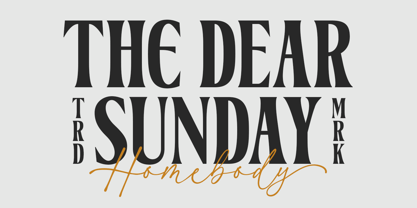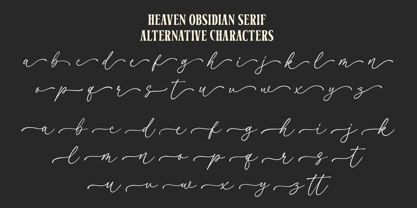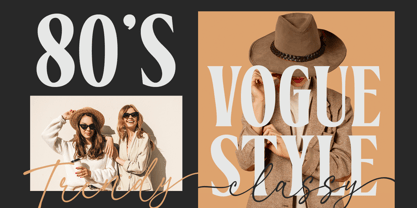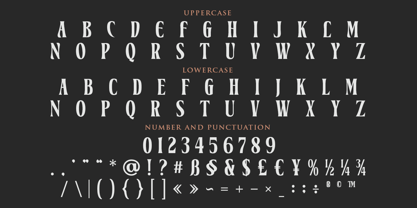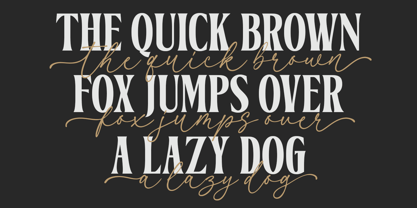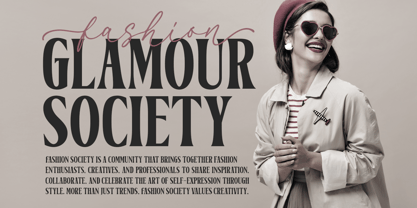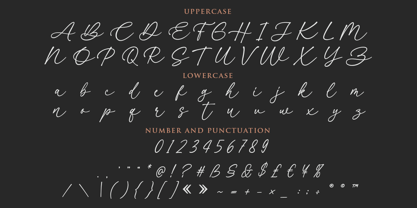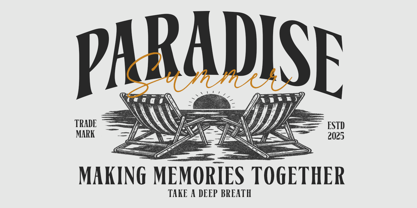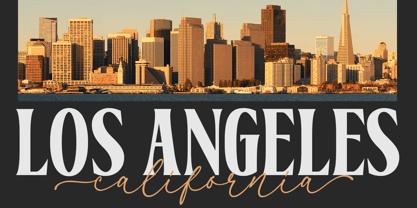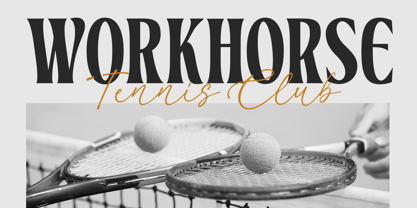
Heaven Obsidian
The Heaven Obsidian Font Family was designed by Bangkit Tri Setiadi and published by Blankids. Heaven Obsidian contains 2 styles and family package options. More about this family
Hello, awesome people! This time, we have a new font called Heaven Obsidian a Vintage Elegant Serif and Script Font Combination by Blankids Studio.
Heaven Obsidian a Perfect Serif and Script Font Combination is made for any professional project branding, such as logotype, watermarks, poster, branding, promotions, product packaging, etc. Every letter has a vintage elegant style design.
Heaven Obsidian font includes a full set of vintage elegant uppercase and lowercase letters, numerals and punctuation. This font has a vintage elegant style. See the previews above to get some inspiration on how to use them. Happy designing!